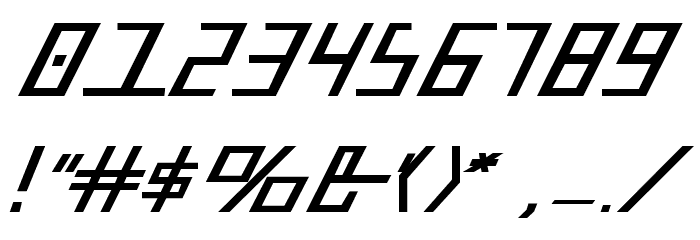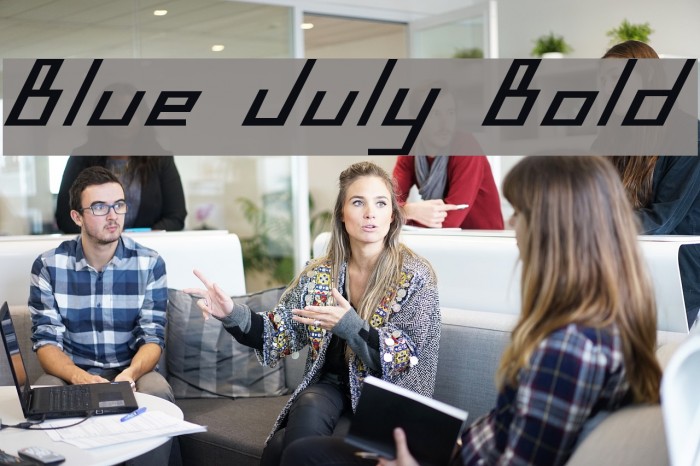
Blue July Bold Font
This font exhibits a modern and angular design, characterized by its sharp edges and geometric structure. The letters are slanted, giving it a dynamic and forward-moving appearance. The uppercase and lowercase letters maintain a consistent style, with a uniform stroke width that adds to its boldness. The numerals and special characters follow the same angular and slanted design, ensuring a cohesive look across all characters. This font's unique style makes it stand out, suitable for projects that require a contemporary and edgy aesthetic.
A modern, angular font with a bold and dynamic slant.
- Proposed Projects: Ideal for branding, advertising, and digital media projects that seek a modern and edgy look.
- Use Case: Headlines, Logos, Branding